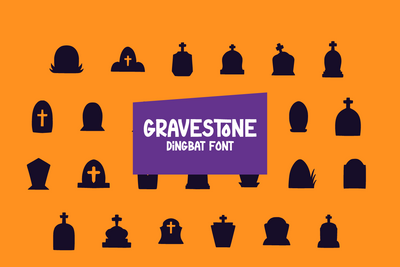
Gravestone - Dingbat Font
Gravestone is a unique and creative dingbat font. This font is inspired by the Halloween theme. it contains glyphs of various tombstone shapes